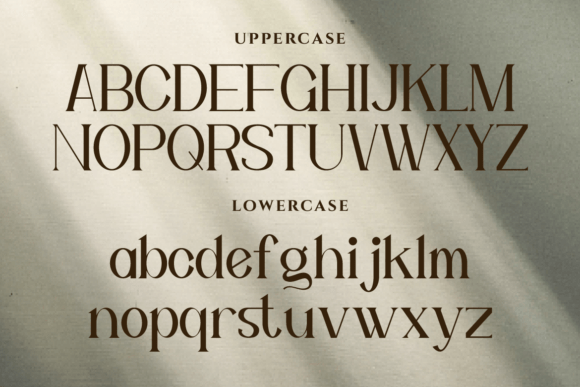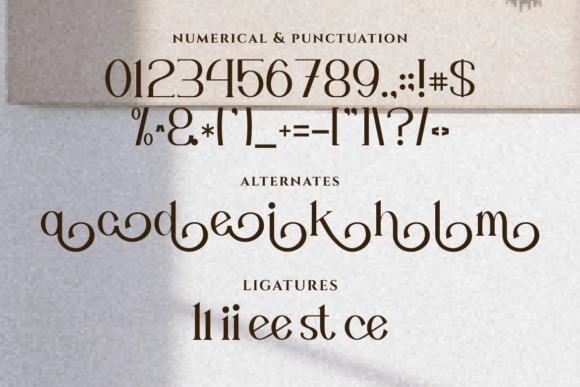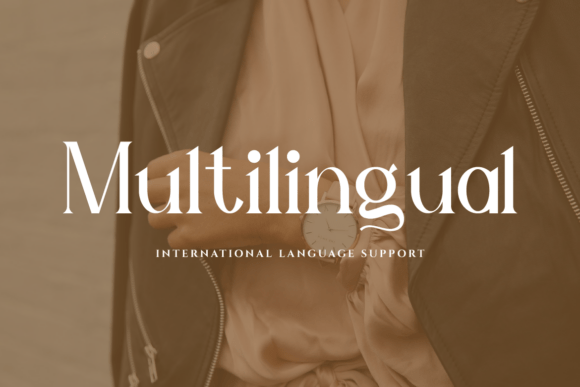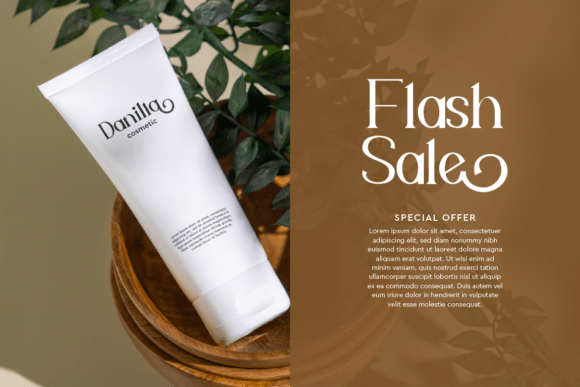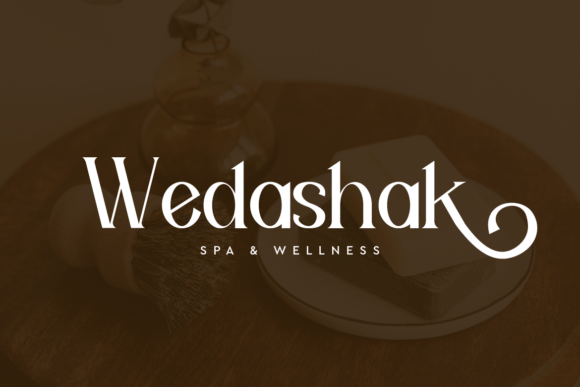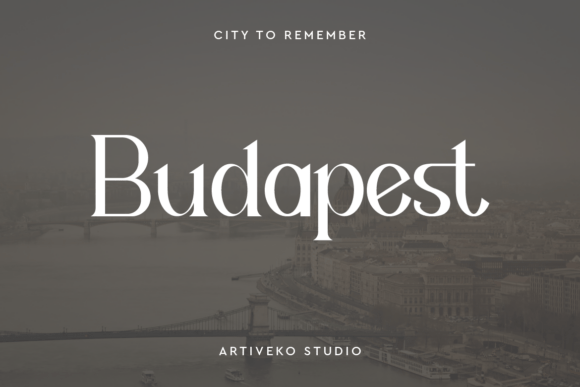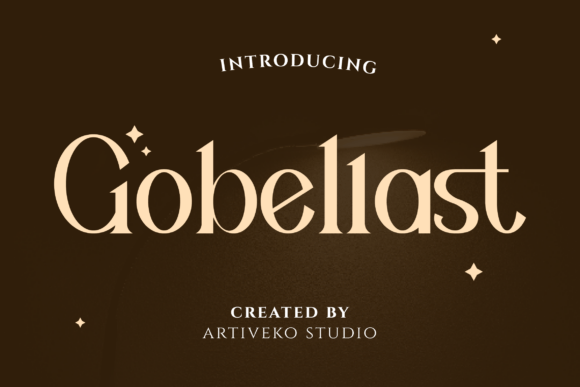
Introducing Gobellast Font: Elevate Your Design with Refined Minimalist Sophistication
In the world of typography, the right font can make all the difference in elevating your design from ordinary to extraordinary. For designers and crafters seeking a typeface that embodies quiet sophistication, look no further than Gobellast Font. This refined minimalist serif font is meticulously crafted to bring a touch of classic elegance and modern simplicity to your projects.
The Essence of Gobellast Font
Gobellast is characterized by its clean lines, subtle serifs, and gentle contrast, making it an exemplary choice for those who appreciate the beauty of understated design. Its minimalist approach does not compromise on elegance; instead, it enhances the typographic experience by offering a sophisticated look that is both versatile and timeless.
Key Features of Gobellast Font
- Clean Lines: The font’s uncluttered and straightforward lines ensure that your message is conveyed with clarity and precision, making it perfect for a wide range of applications.
- Subtle Serifs: The gentle serifs add a touch of sophistication and classic feel, enhancing the readability and aesthetic appeal of your text.
- Gentle Contrast: The carefully designed contrast between strokes provides depth and character to the font, giving it a dynamic yet refined appearance.
Applications of Gobellast Font
Gobellast’s versatility makes it an excellent choice for various design projects, including:
- Branding: Establish your brand’s identity with a sophisticated and elegant typeface that communicates your values and personality.
- Editorial Design: Enhance the readability and visual appeal of your publications, whether it’s a magazine, journal, or book.
- Packaging: Elevate your product packaging with a refined and luxurious look that stands out on the shelves.
- Wedding Invitations: Add a touch of elegance and romance to your wedding invitations and stationery.
- High-End Visual Content: Perfect for creating sophisticated and engaging visual content for luxury brands, events, and campaigns.
Why Choose Gobellast Font?
In a sea of fonts, Gobellast stands out for its unique blend of minimalist design and classic elegance. Here are a few reasons why designers and crafters are gravitating towards Gobellast:
- Timeless Appeal: Gobellast’s design ensures that your work remains relevant and stylish for years to come, avoiding the fleeting nature of trendy typography.
- Versatility: Its adaptability across various mediums and applications makes Gobellast a valuable addition to any designer’s toolkit.
- Enhanced Readability: The font’s careful design ensures excellent readability, making it suitable for both digital and print projects.
Gobellast Font is a masterpiece of modern typography, offering a perfect blend of minimalist sophistication and classic elegance. Whether you’re a designer looking to elevate your branding, editorial, or packaging projects, or a crafter seeking the perfect typeface for your wedding invitations or visual content, Gobellast is an exceptional choice. Its clean lines, subtle serifs, and gentle contrast make it an exemplary model of refined typography. Experience the quiet sophistication that Gobellast brings to your designs and discover a new level of typographic excellence.
Embrace the understated luxury of Gobellast Font in your next project and witness how this refined minimalist serif font can transform your typography into a statement of elegance and sophistication.